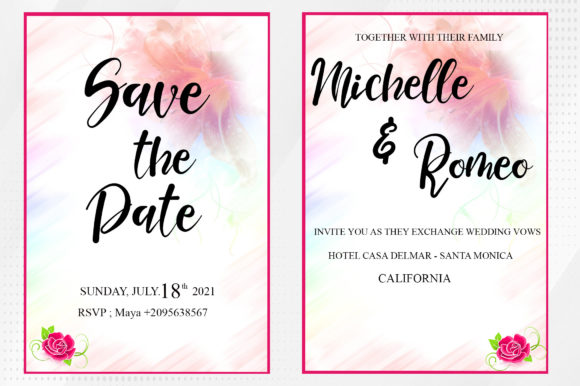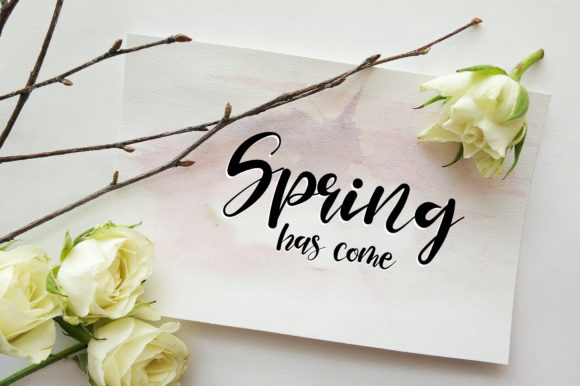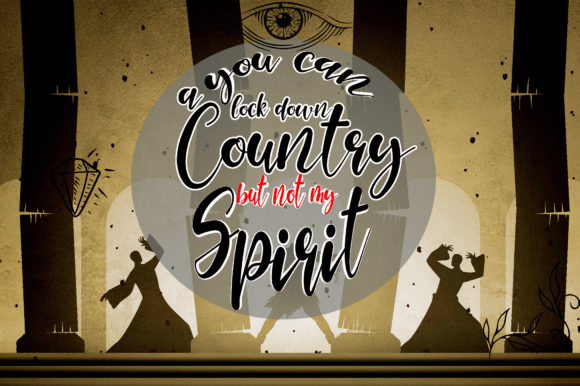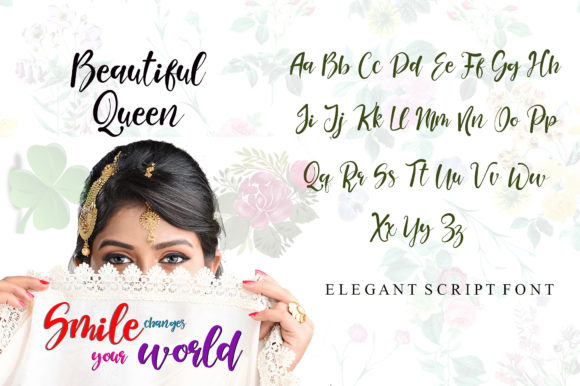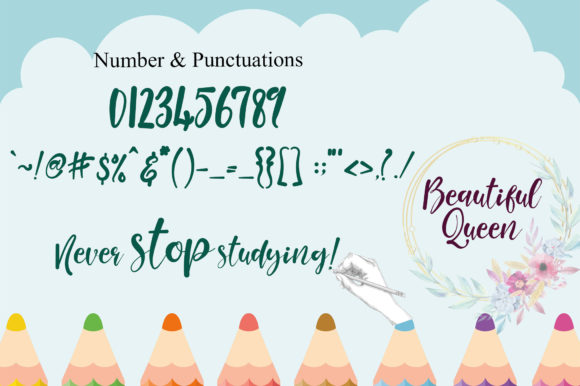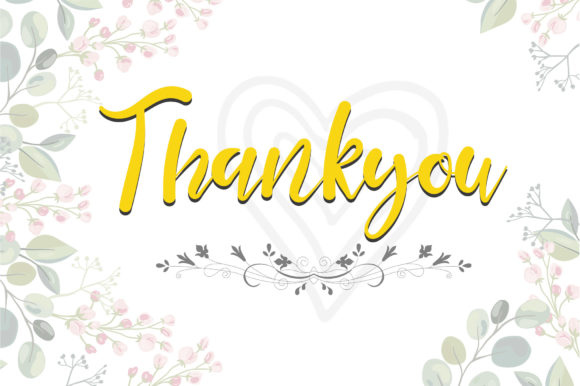
Introduction to Beautiful Queen Font
As you sit down to work on your latest creative project, you’re met with a blank canvas, a spark of inspiration, and a dash of uncertainty. What will bring your vision to life? The perfect font can make all the difference. And that’s exactly what the Beautiful Queen Font does – it adds a touch of elegance, sophistication, and timeless charm to your designs.
Designed with the utmost care and attention to detail, the Beautiful Queen Font is a beautiful addition to any designer’s toolkit. With its balanced and varied forms, it’s perfect for creating stunning visuals that demand attention. Whether you’re working on a high-quality brochure, a website, or a social media campaign, this font is sure to elevate your design to new heights.
Key Features of Beautiful Queen Font
- High-quality design with a unique, elegant style, perfect for creative projects.
- Features a transparent background, allowing for easy integration into various design elements.
- Includes a comprehensive character set, covering a wide range of languages and alphabets.
- Designed at a high resolution (300 DPI) for optimal print quality, making it suitable for business cards, invitations, and other printed materials.
Honest Review: Beautiful Queen Font
As a designer, I’m always on the lookout for high-quality design resources to elevate my creative projects. Recently, I had the chance to work with the Beautiful Queen Font, and I’m excited to share my honest review with you.
- ✨ Beautiful Queen Font offers a unique and elegant aesthetic that adds a touch of sophistication to any design project.
- ✨ The font is highly customizable, making it easy to adjust the style and layout to fit your specific needs.
- ⚠️ The font doesn’t include a transparent background option, which can be limiting for designers who want to create seamless compositions.
- ⚠️ The font’s design can feel a bit overused, which may make it less effective in highly competitive design spaces.
Overall, I think the Beautiful Queen Font is a solid design resource that can add value to a variety of creative projects. While it may have some limitations, its unique aesthetic and customization options make it a great choice for designers looking to add a touch of elegance to their work.
Tips for Getting the Most Out of Beautiful Queen Font
To get the most out of the Beautiful Queen Font, be sure to use it with a high-quality image or background to really make it stand out. You can also experiment with different font sizes and styles to create a unique and eye-catching design.
Common Use Cases for Beautiful Queen Font
The Beautiful Queen Font is perfect for a variety of creative projects, including social media graphics, posters, flyers, presentations, and documents. It’s also great for creating invitations, business cards, and other marketing materials.
Is the Beautiful Queen Font suitable for high-resolution printing?
Yes, the Beautiful Queen Font is designed to be a high-quality design resource, making it perfect for high-resolution printing. With its high-resolution glyph outlines and precise spacing, the Beautiful Queen Font ensures that your text will look crisp and clear, even at large sizes and high print resolutions.